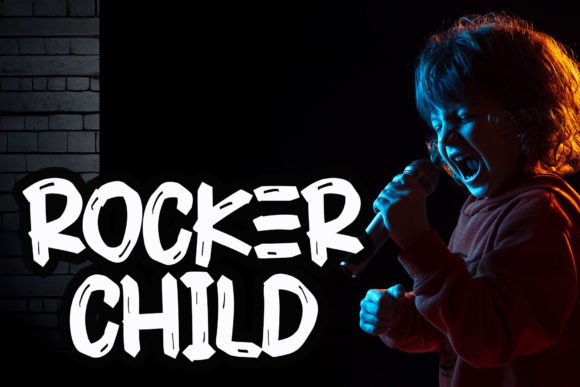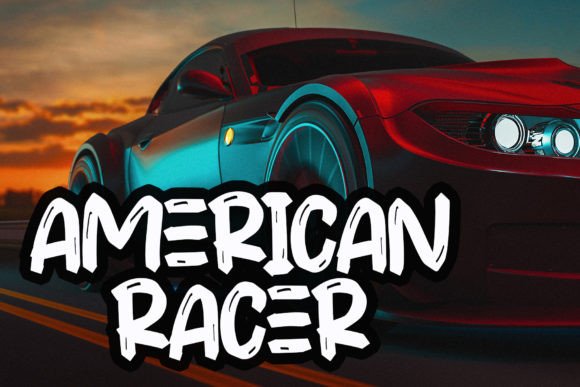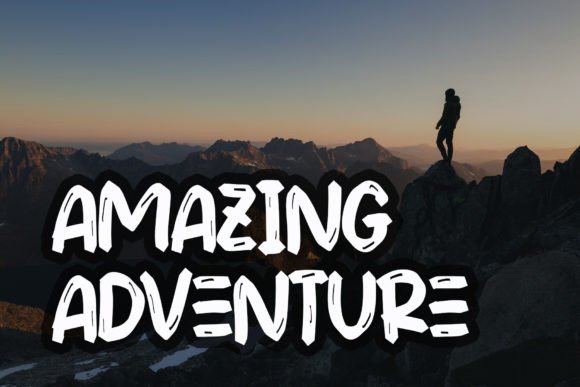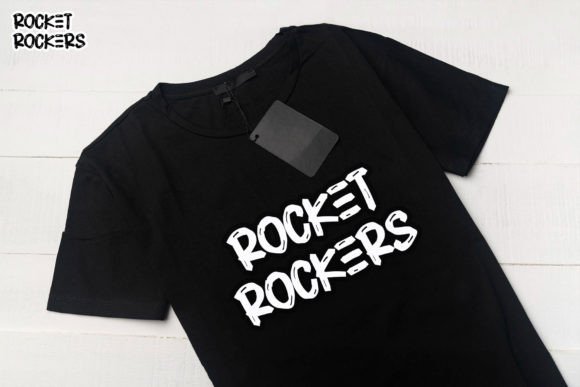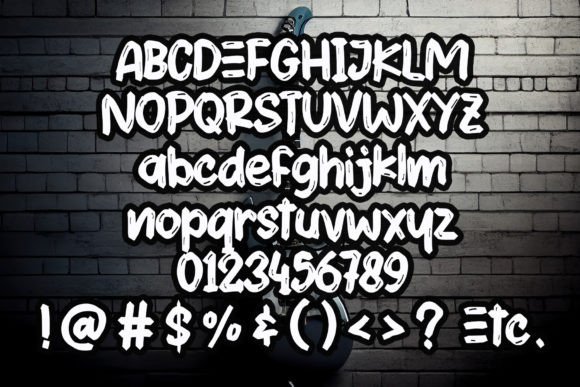
Introduction to Home Rock Font
Home Rock is a natural handwritten brush font.
It looks stunning on thank you cards, quotes, greeting cards, logos, business cards, and every other design which needs a handwritten touch .